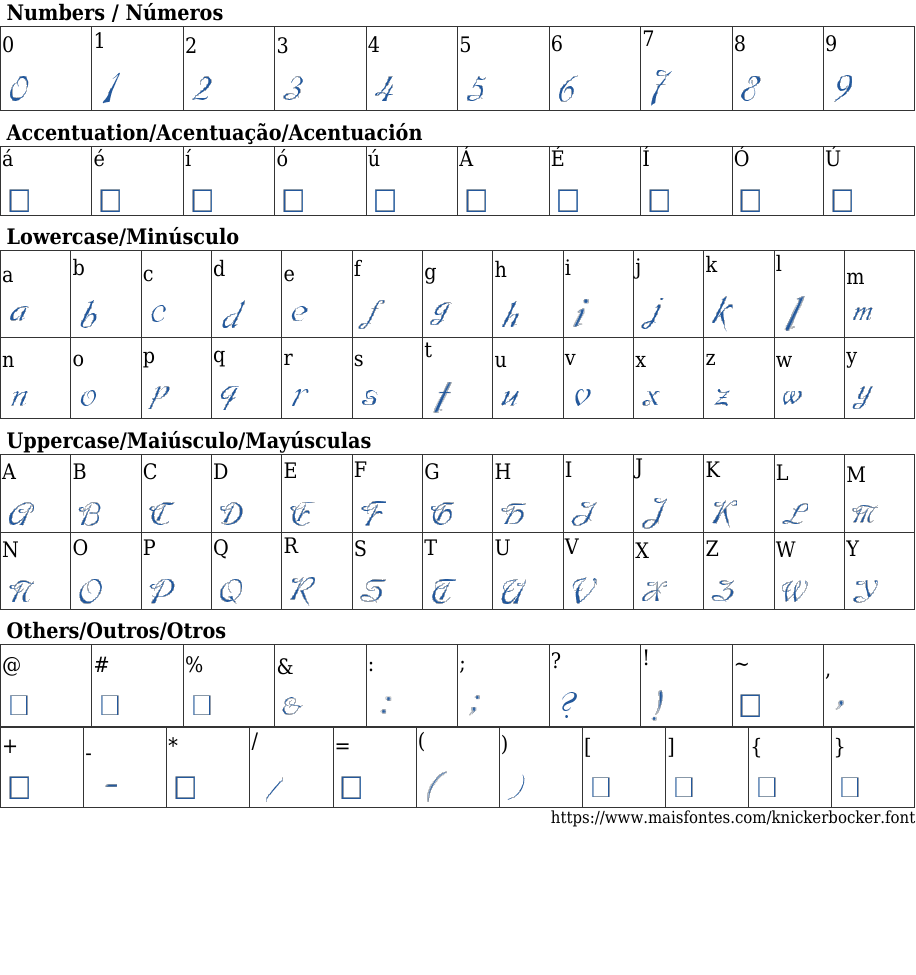
Knickerbocker Font . Tt knickerbockers is a brush script, display sans and sans serif font family. Tt knickerbockers font family was designed by yuliana morgun, nadezhda polomoshnova, typetype team and published by typetype. With this tool, you can easily copy your desired text in svg format without the need to download the font. This is a trial font for personal use only. Tt knickerbockers contains 2 styles. Tt knickerbockers script regular ver 1.000 𑁋 modified at feb 6, 2023. The font is available in all formats (tt knickerbockers woff2, tt knickerbockers woff, tt knickerbockers. If you want to use the. This typeface has two styles and was published by typetype. Download free tt knickerbockers script font,. You can then paste it into. Use the text generator tool below to preview tt knickerbockers script font, and create appealing text graphics with different colors and hundreds of text effects.